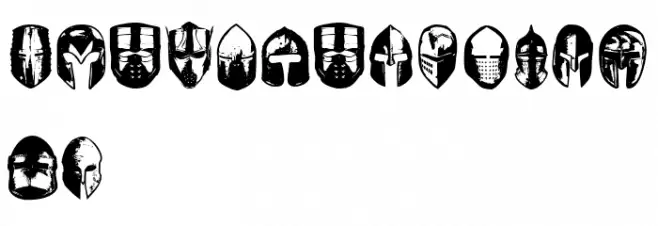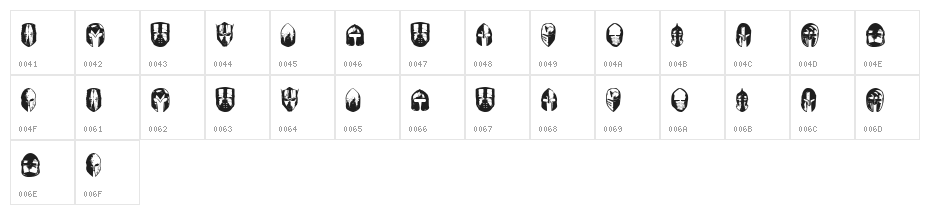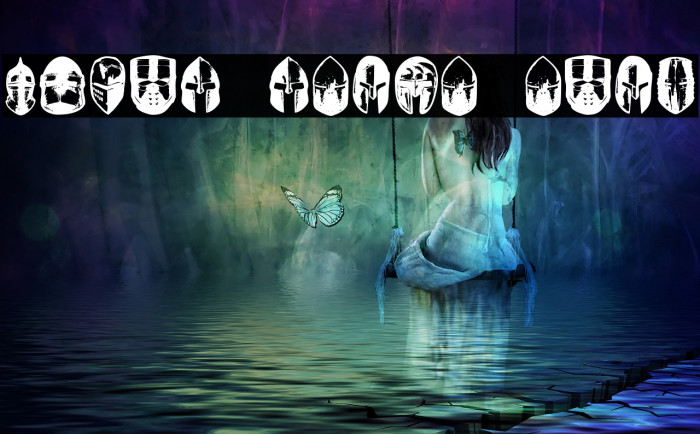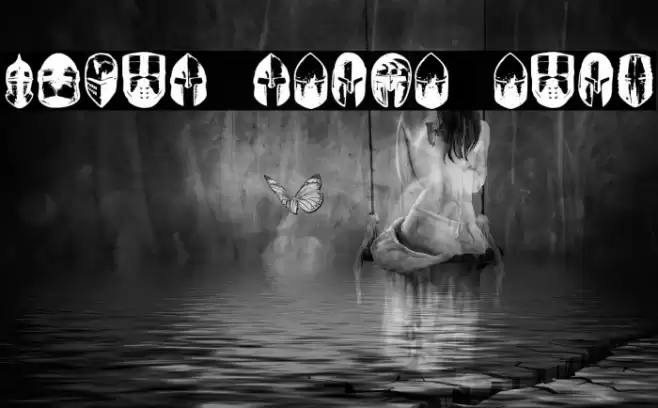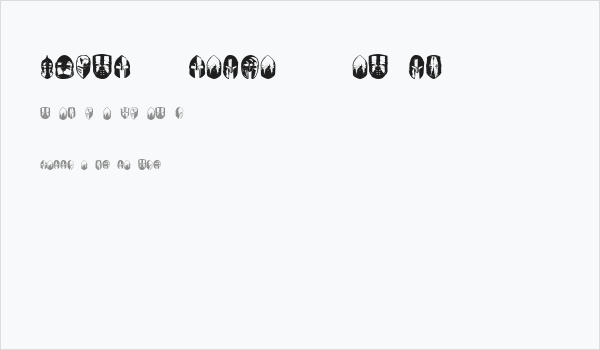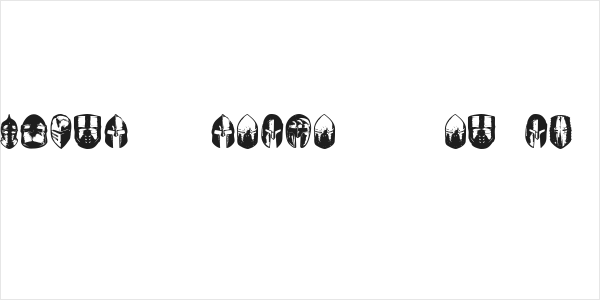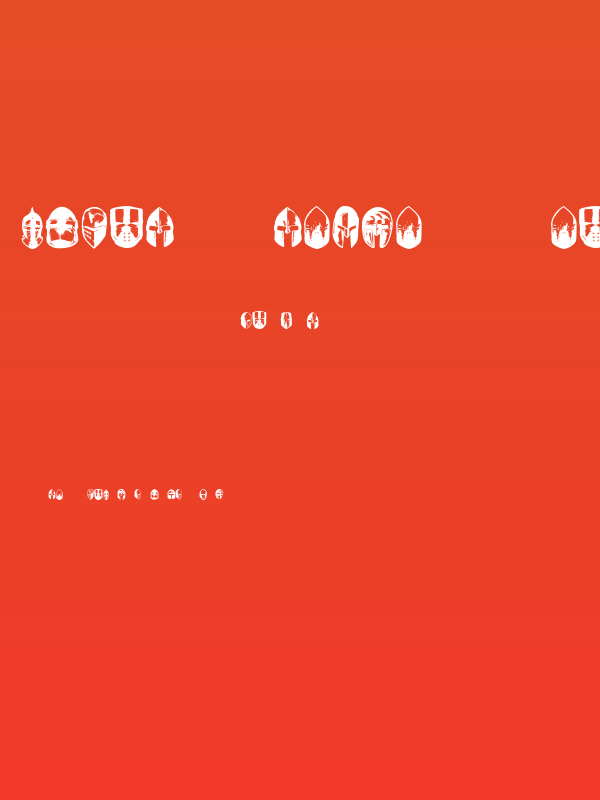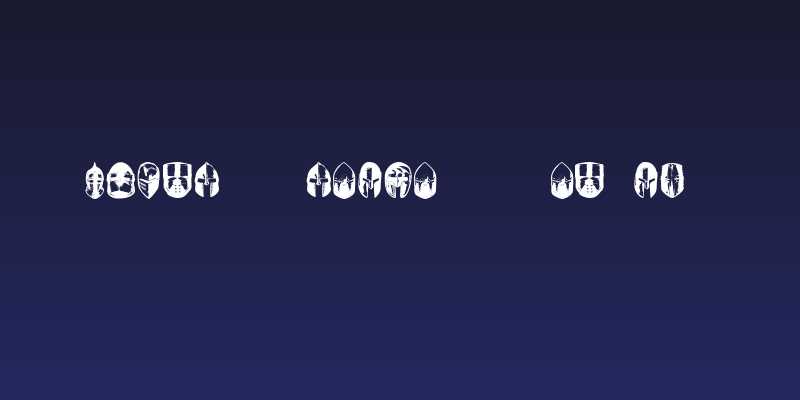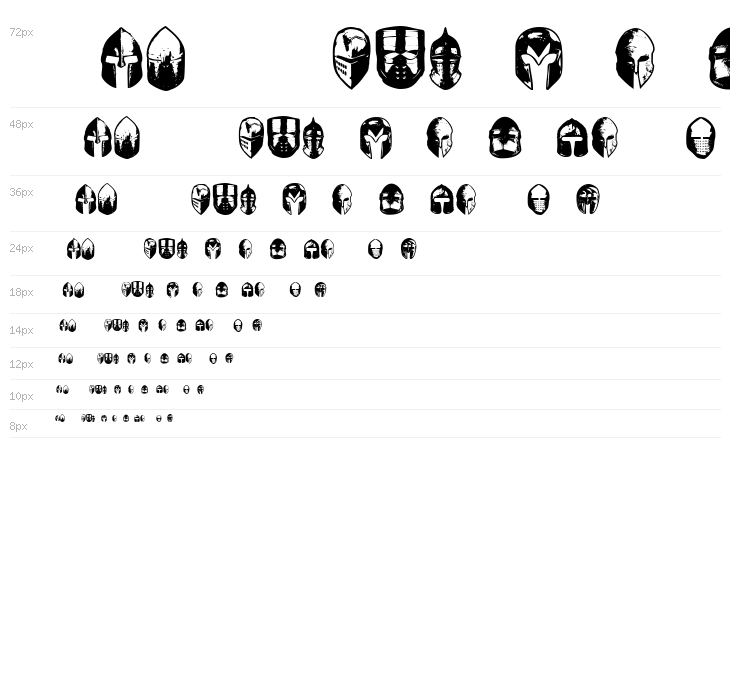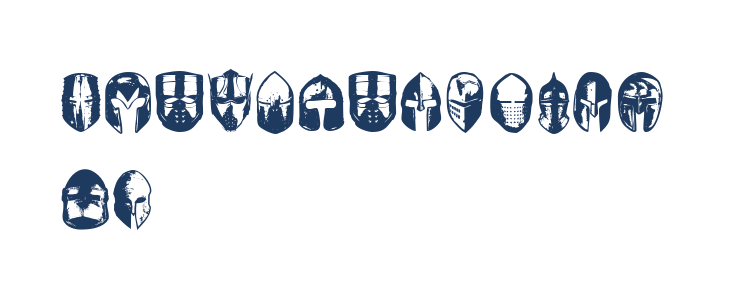
Knights Helmets Regular Font
Knights Helmets Regular Description
This unique typeface features a series of intricately designed knight helmets, each representing a different character. The helmets are highly detailed, showcasing various historical styles with bold lines and strong contrasts. The design is primarily decorative, capturing the essence of medieval armor with a modern twist. Each helmet is distinct, offering a wide variety of visual interest and complexity. The overall aesthetic is bold and striking, making it an excellent choice for projects that require a strong, thematic visual element.
Use CaseLogos, Posters, Themed Graphics
Proposed ProjectsIdeal for themed posters, gaming graphics, medieval event promotions, or any project requiring a historical or fantasy element.